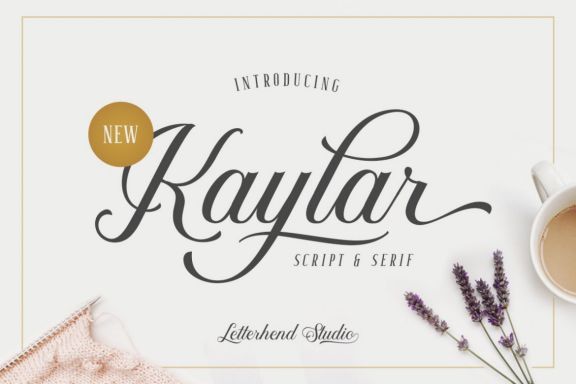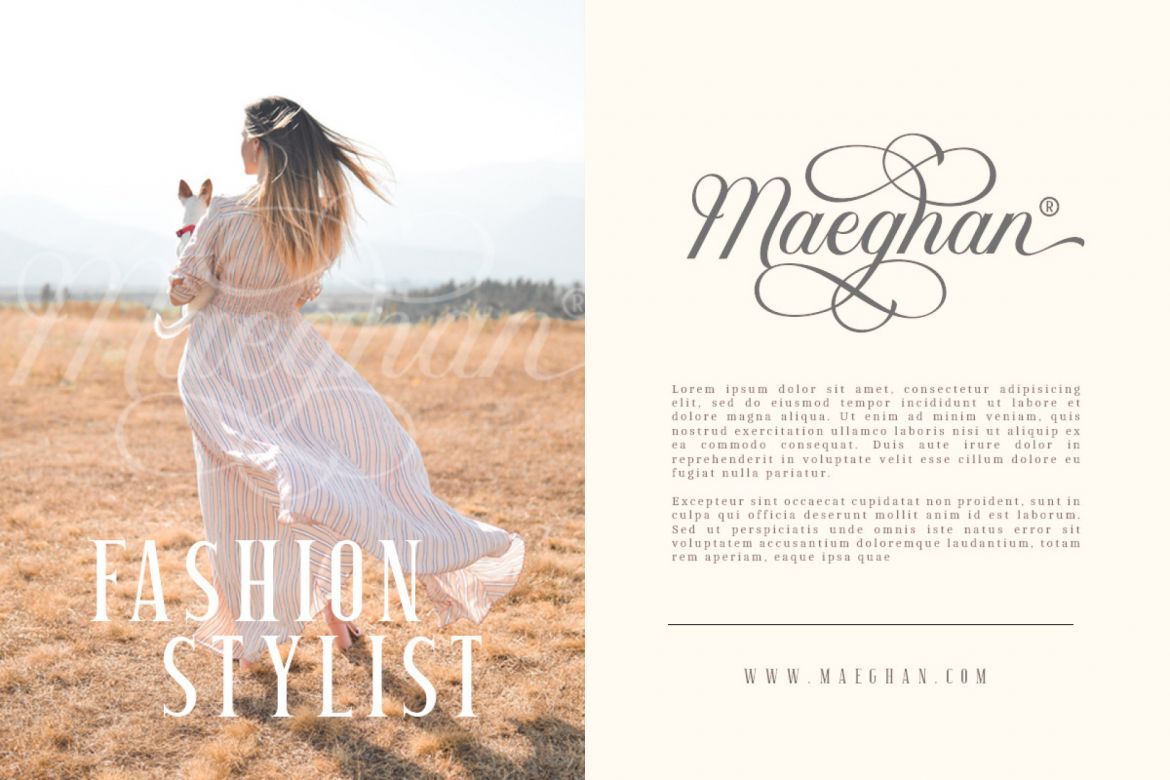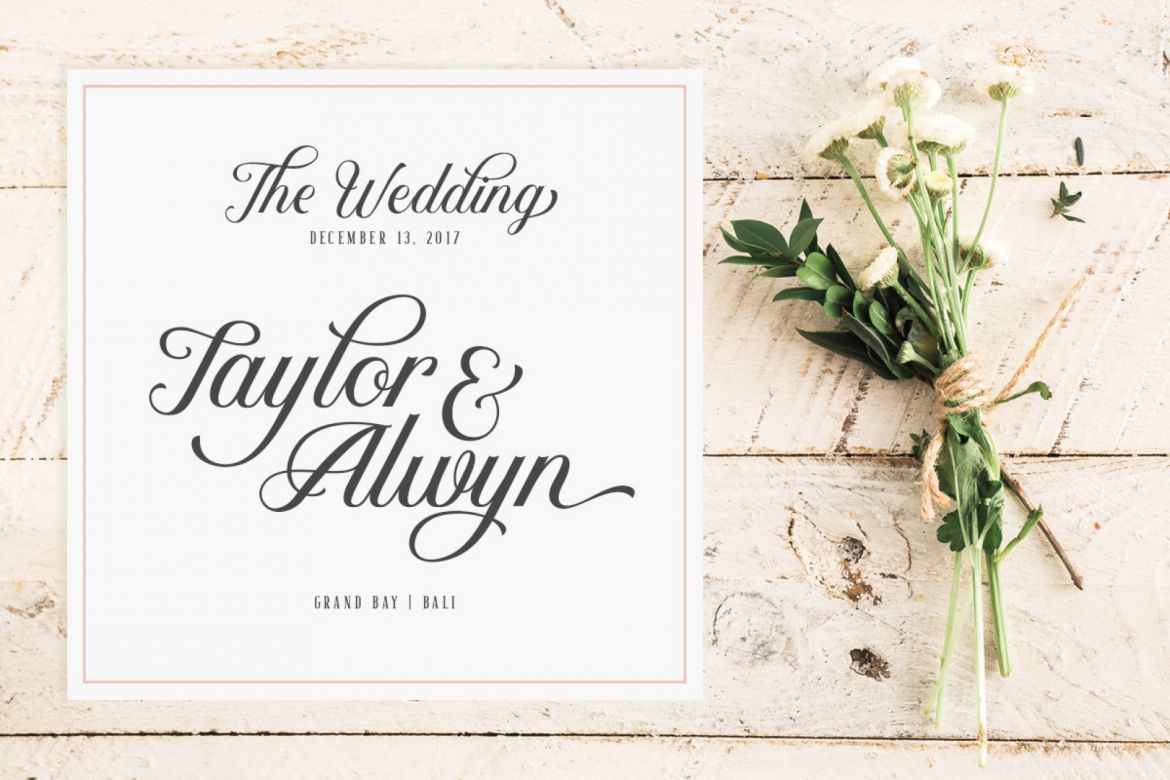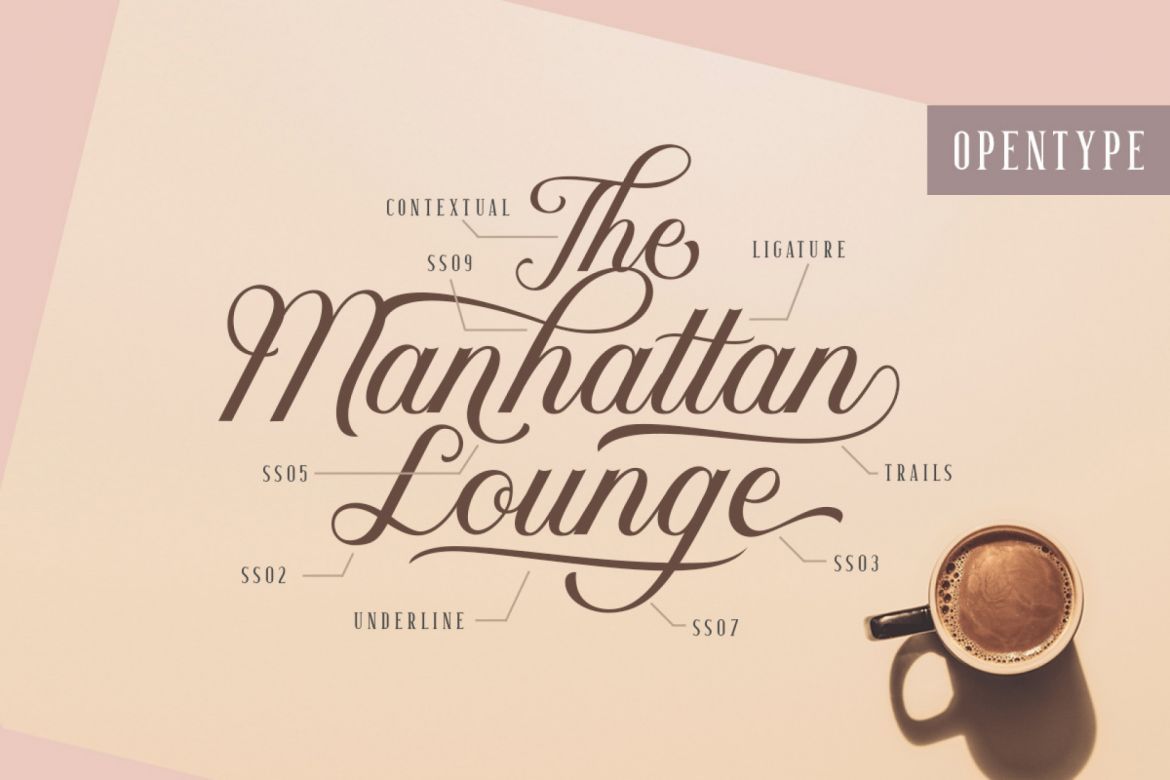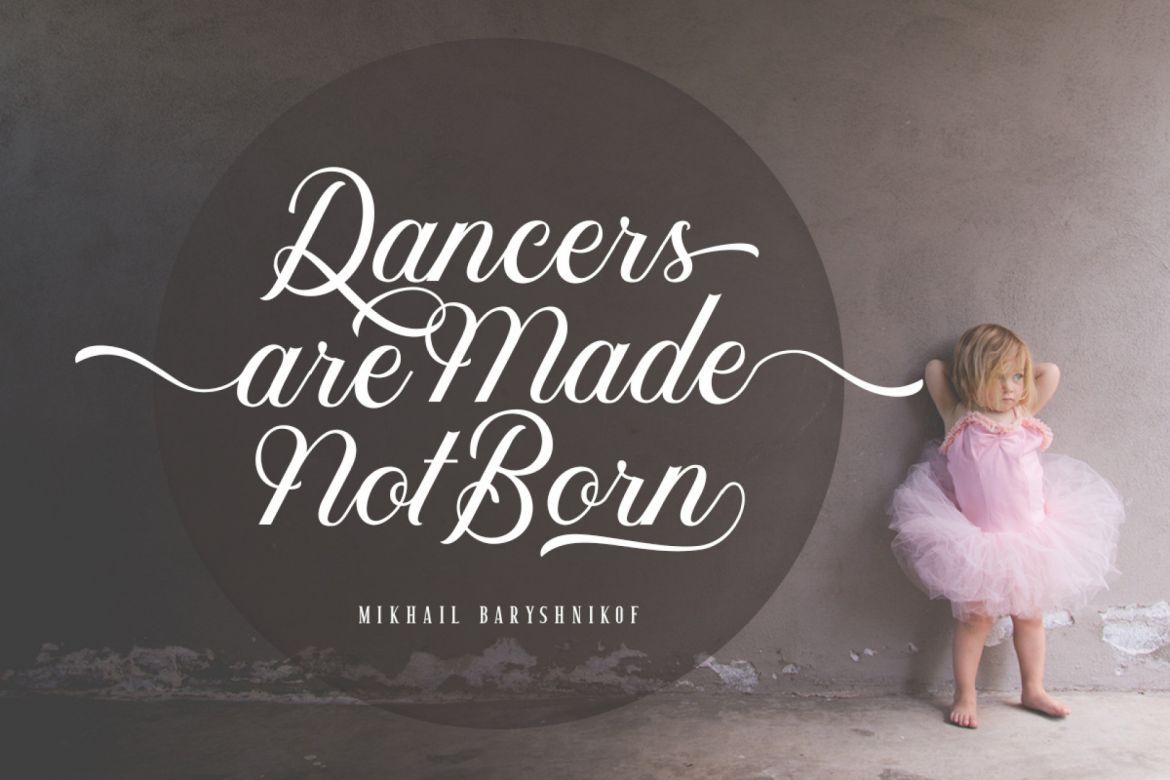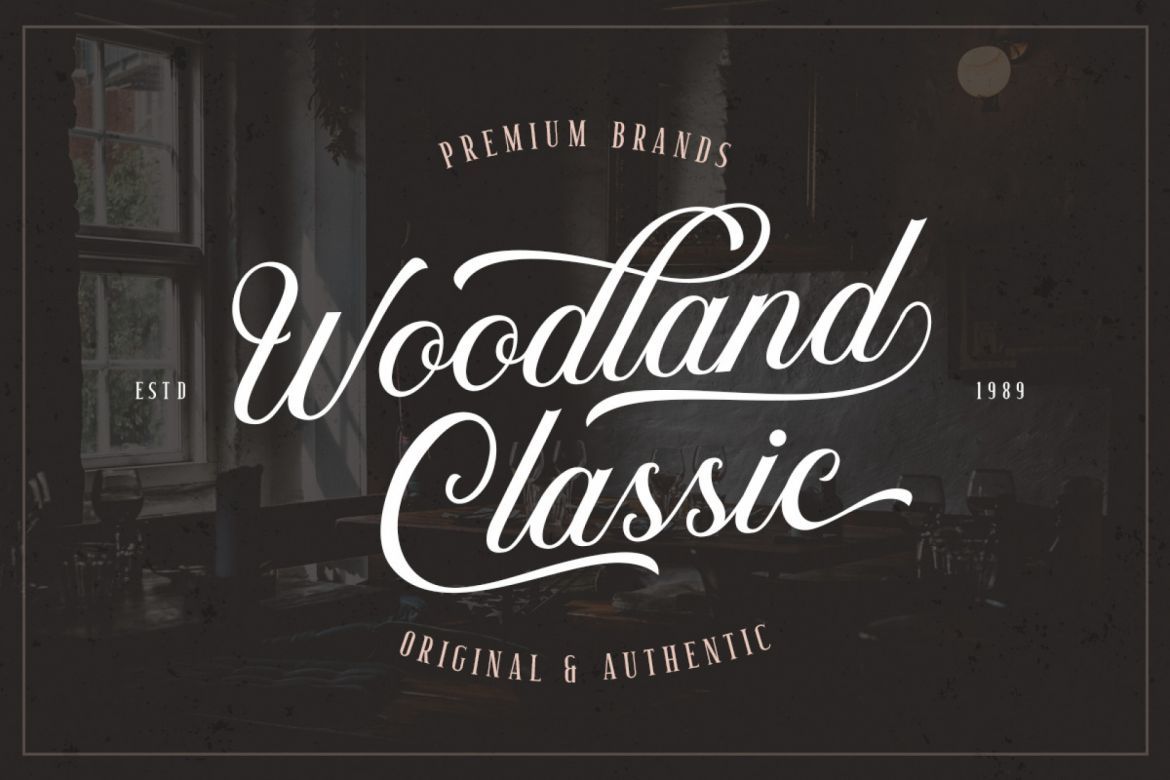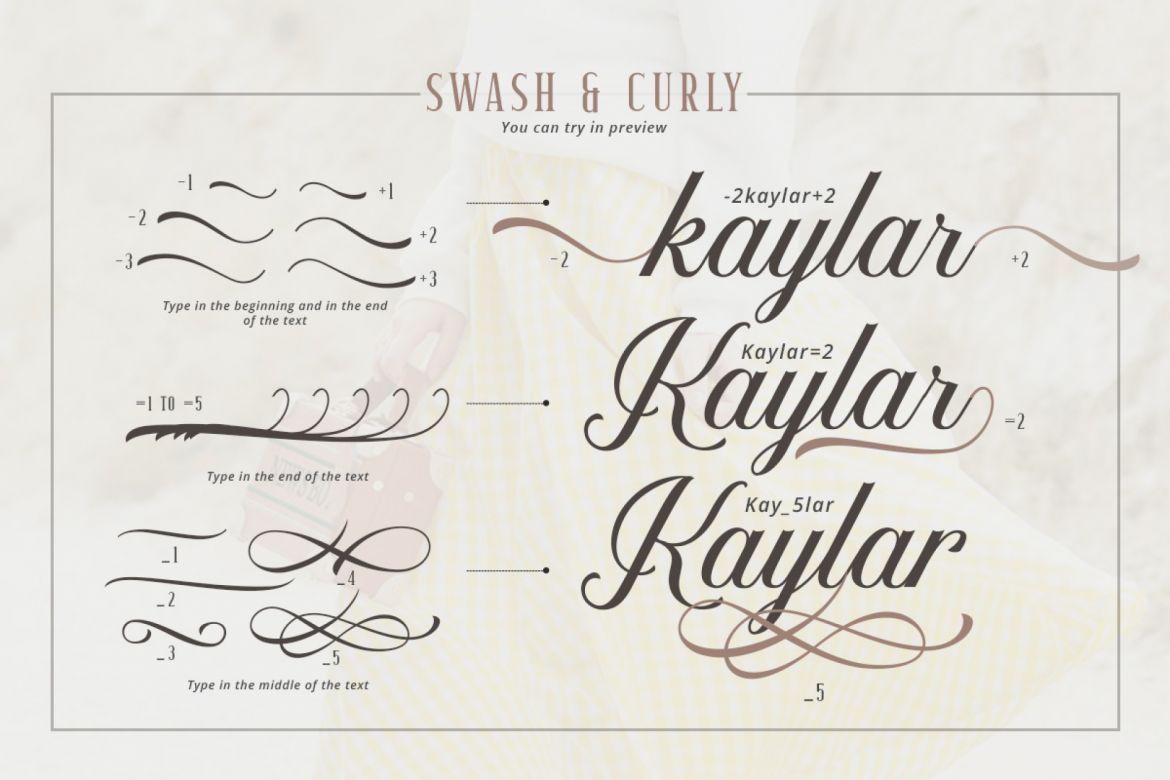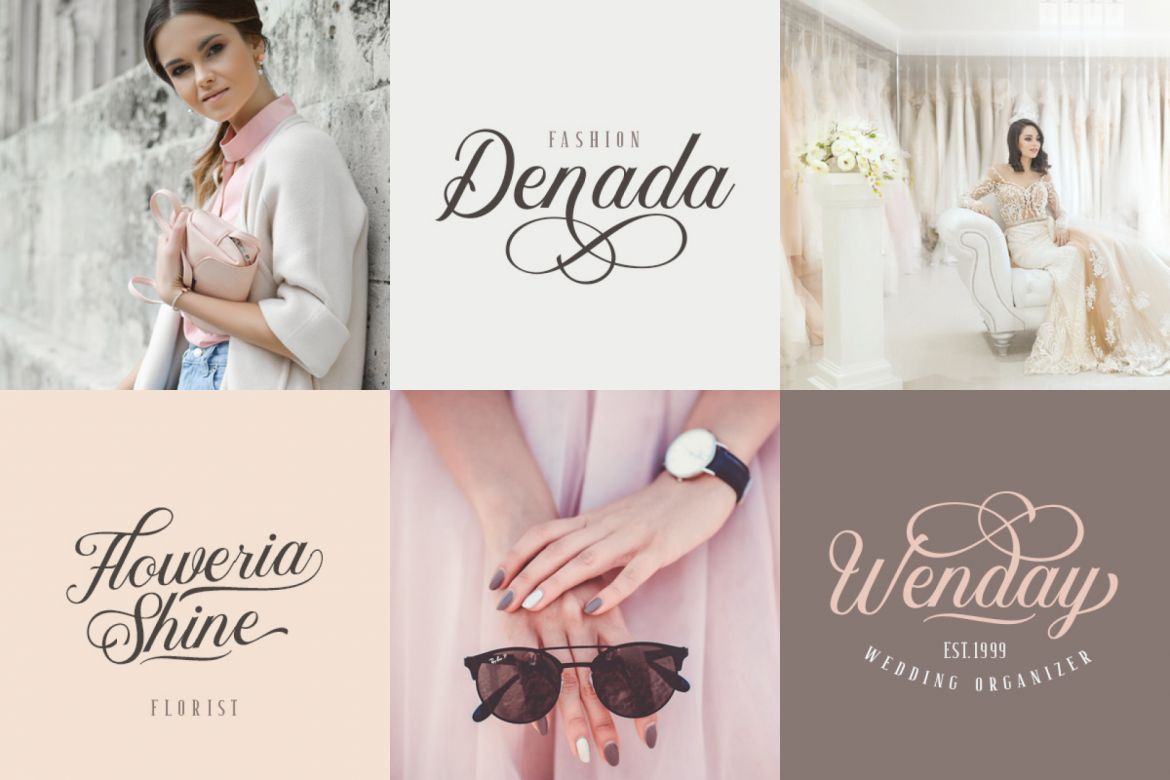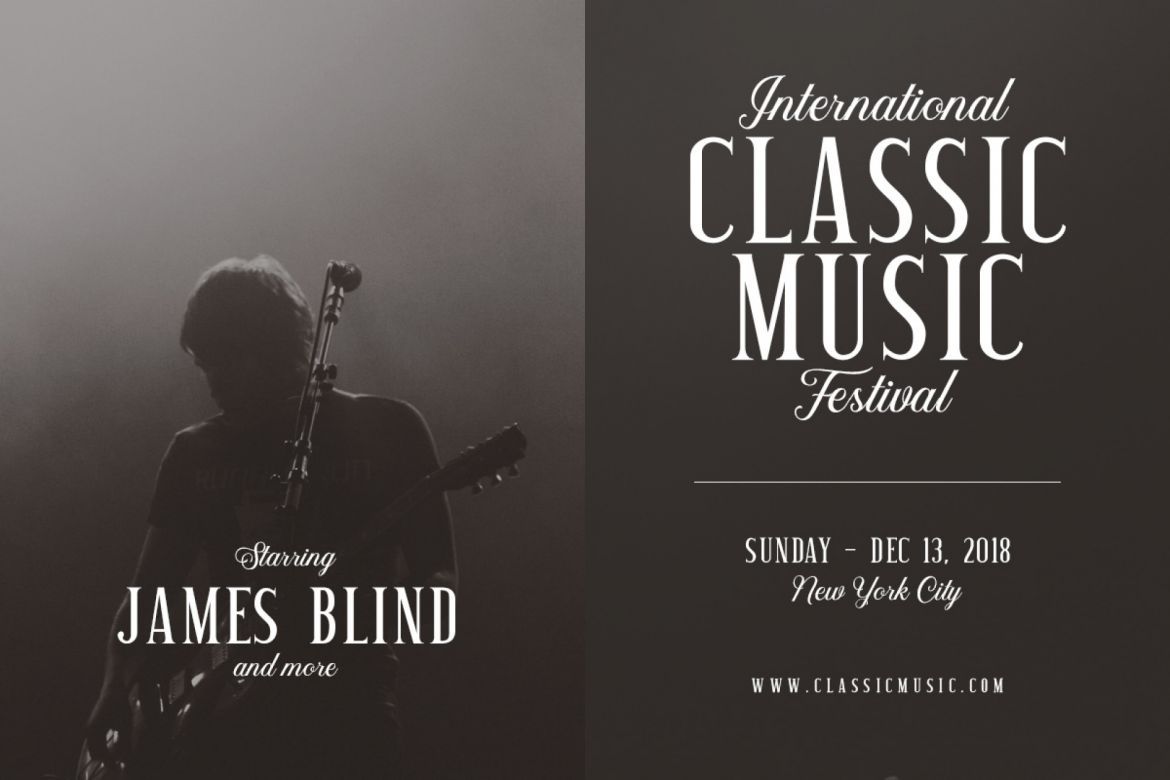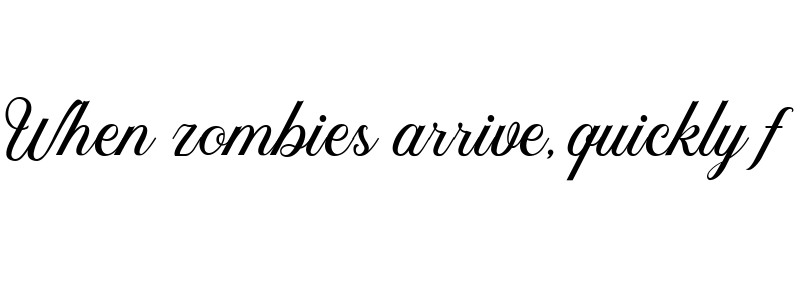
Kaylar Font Duo
Kaylar Script
Kaylar Serif
Kaylar - Elegant Script & Serif
• its unique opentype feature allows you to activate the swash ornament in a very simple way.
• very suitable and bring classy luxury and feel.